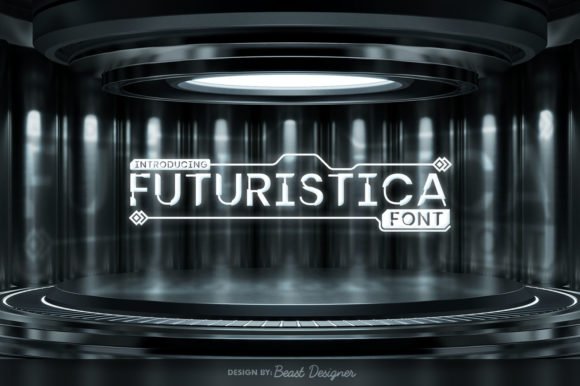
Unlock the Power of Futuristica Font in Your Designs
You know that moment when you’re brainstorming a new project, and the perfect font suddenly pops into your head? It’s like the whole design comes together in a flash of inspiration. For many designers, that moment often involves the Futuristica Font – a trendy and incredibly evolved display font that adds a touch of sophistication to any project.
Whether you’re working on a futuristic sci-fi novel, a sleek tech startup, or a high-end fashion brand, the Futuristica Font is a valuable addition to your toolkit. Its unique blend of modernity and elegance makes it the perfect choice for designers who want to make a statement without compromising on style. By incorporating the Futuristica Font into your designs, you’ll elevate your work to new heights and leave a lasting impression on your audience.
Futuristica Font Key Features
- Unique Characteristics: Geometric sans-serif design, bold and modern aesthetic, ideal for futuristic and sci-fi themed projects
Futuristica Font Review
Futuristica Font is an interesting and unique font that caught my attention. I’ll break down what works well and what doesn’t, giving you a clear idea of what to expect.
- Modern and futuristic aesthetic: The font has a sleek and modern feel to it, making it perfect for projects that require a touch of futurism.
- High legibility: The font is well-designed and easy to read, even at smaller font sizes.
- Good for titles and headings: Futuristica Font shines when used for titles and headings, adding a touch of sophistication to your design.
- Limited character set: The font’s character set is limited, which might be a problem for languages that require a wide range of characters.
- No bold or italic versions: The font doesn’t come with bold or italic versions, which might be a limitation for designers who need to emphasize certain text.
- Not suitable for body text: While the font is great for titles and headings, it’s not the best choice for body text, as it can be overwhelming to read in large quantities.
Futuristica Font is a great addition to any designer’s toolkit, but it’s not a one-size-fits-all solution. It’s perfect for projects that require a touch of futurism and sophistication, but might not be the best choice for body text or languages that require a wide range of characters.
- Use the font’s advanced features, such as ligatures and swashes, to add depth and interest to your design.
Tips for Getting the Most Out of Futuristica Font
Here are some tips to help you get the most out of Futuristica Font:
- Use Futuristica Font for titles and headings to add a touch of futurism to your design.
- Experiment with different font sizes and styles to create a unique and eye-catching look.
- Combine Futuristica Font with other fonts to create a visually appealing and balanced design.
Futuristica Font is ideal for:
- Designing futuristic and sci-fi themed projects.
- Creating high-tech and innovative branding materials.
How do I access the advanced typographic features of the Futuristica Font?